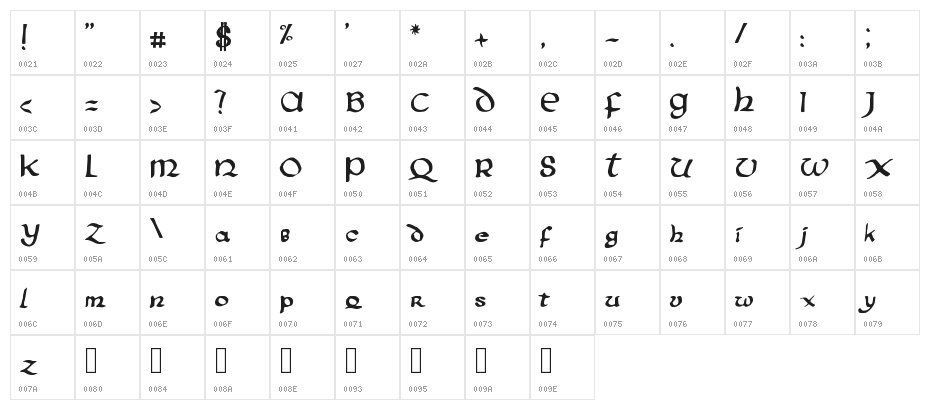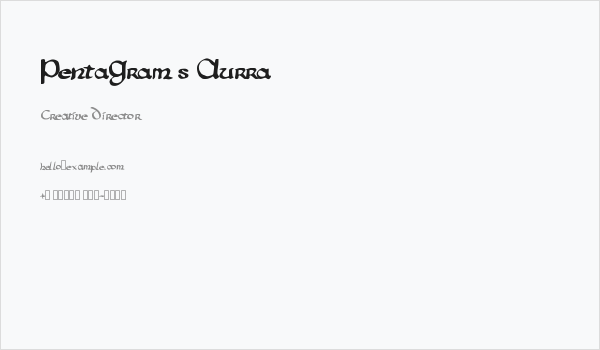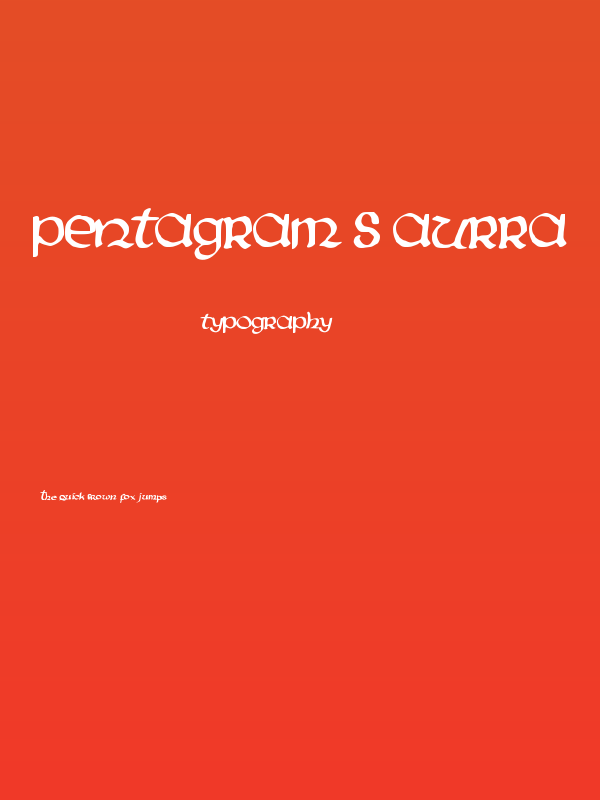
PentaGram s Aurra Font
PentaGram s Aurra Description
This font features a distinct, calligraphic style with sharp, angular strokes and a medieval flair. The uppercase letters are bold and commanding, while the lowercase letters maintain a consistent flow, enhancing readability. The numbers and special characters are designed to complement the overall aesthetic, making them suitable for thematic designs. The font's unique character shapes and intricate details give it a handcrafted appearance, ideal for projects seeking a historical or fantasy theme.
| Proposed Projects | Ideal for fantasy book covers, historical event posters, themed invitations, and video game graphics. |